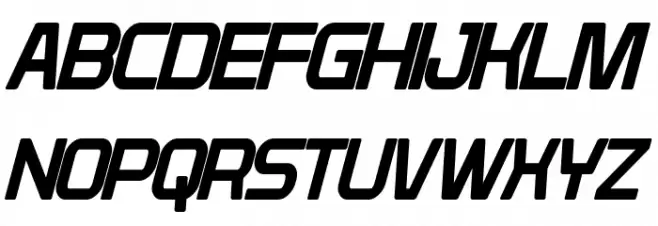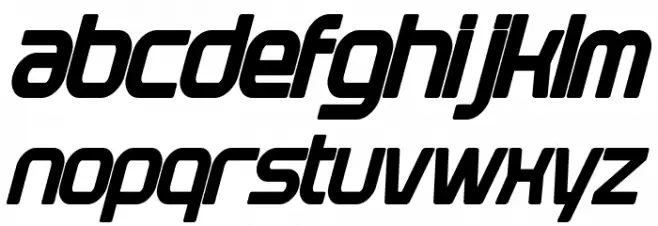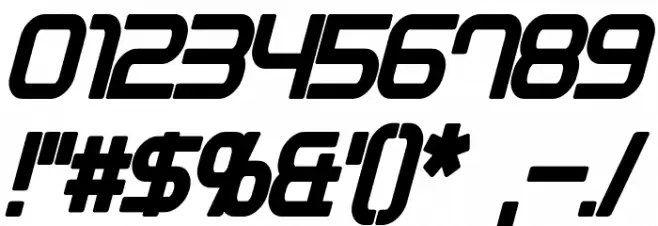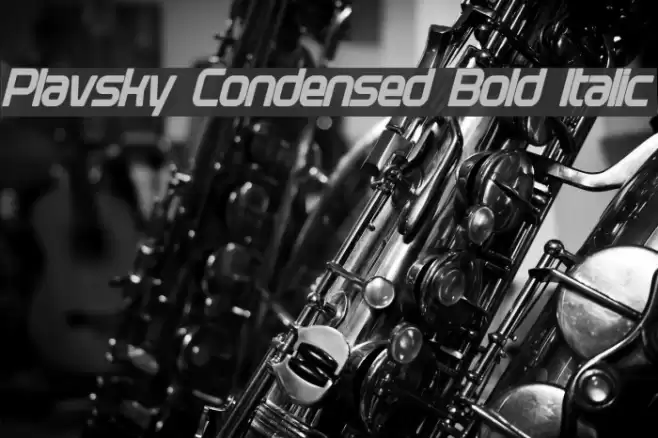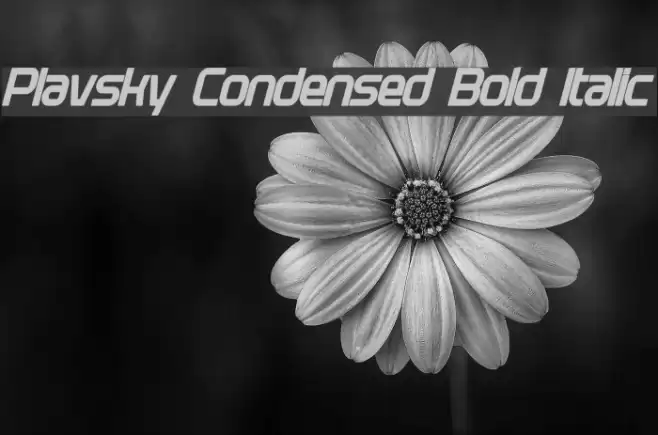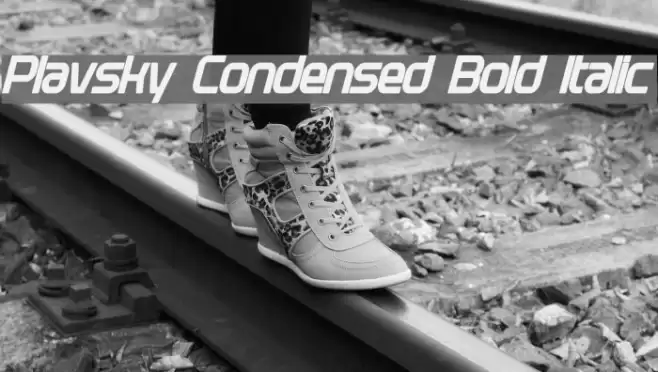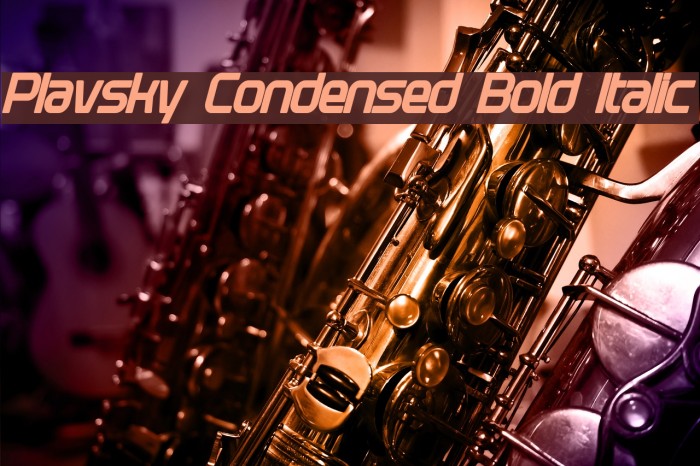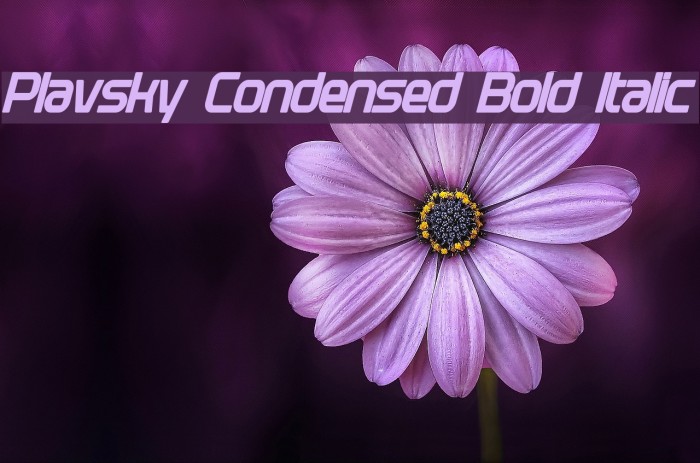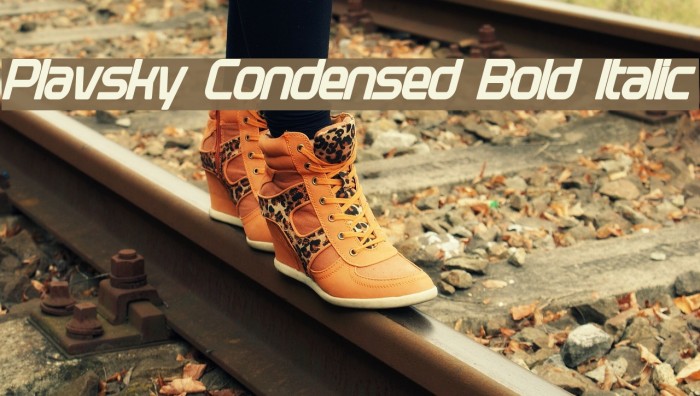
Plavsky Condensed Bold Italic
This font features a bold and italicized style with a condensed width, giving it a sleek and modern appearance. The characters are designed with a forward-leaning slant, enhancing the dynamic and energetic feel. The strokes are thick and consistent, providing a strong visual impact. The uppercase and lowercase letters maintain a uniform height, contributing to a cohesive look. The numerals and special characters are crafted to match the overall style, ensuring versatility across various applications. This font is ideal for projects that require a bold statement with a contemporary edge.
A bold, italic, and condensed font with a modern, dynamic style.
- Proposed Projects: Ideal for sports branding, tech logos, dynamic posters, and modern advertising.
- Width: Condensed
- Use Case: Headlines, Logos, Posters